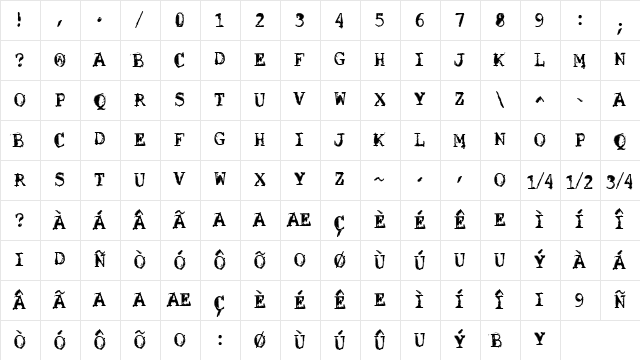
VTKS SOLUǃO CRIATIVA Regular Font Preview
VTKS SOLUǃO CRIATIVA Regular
VTKS SOLUǃO CRIATIVA Regular Font Details
| Foundry | douglas vitkauskas |
| Designer | douglas vitkauskas |
Design Context for VTKS SOLUǃO CRIATIVA Typeface
VTKS SOLUǃO CRIATIVA is a composed and adaptable typeface that performs quietly and consistently across a wide range of design contexts.